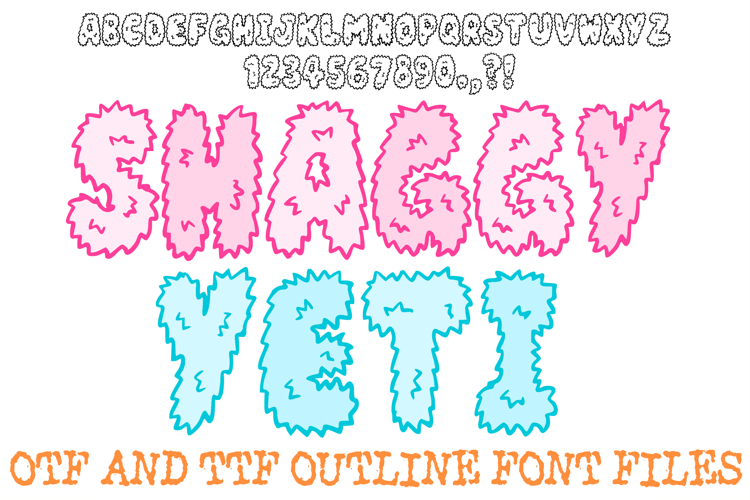
Shaggy Yeti Alphabet Lettering Font Furry Monster ABC OTF
Bring a soft, playful texture to your designs with Shaggy Yeti Font, a hand-drawn display font inspired by mythical snow creatures, fluffy monsters, and cozy winter vibes. Featuring rounded, extra-shaggy letterforms bursting with soft fur details, this font adds an instant dose of cute, tactile fun to any project.
Whether you are designing winter party invitations, kids' birthday graphics, cozy apparel prints, sticker sheets, or whimsical nursery decor, Shaggy Yeti Font brings standout character to your typography. Crafted as a high-resolution vector font, it prints and cuts crisp and clean for all your physical and digital creations.